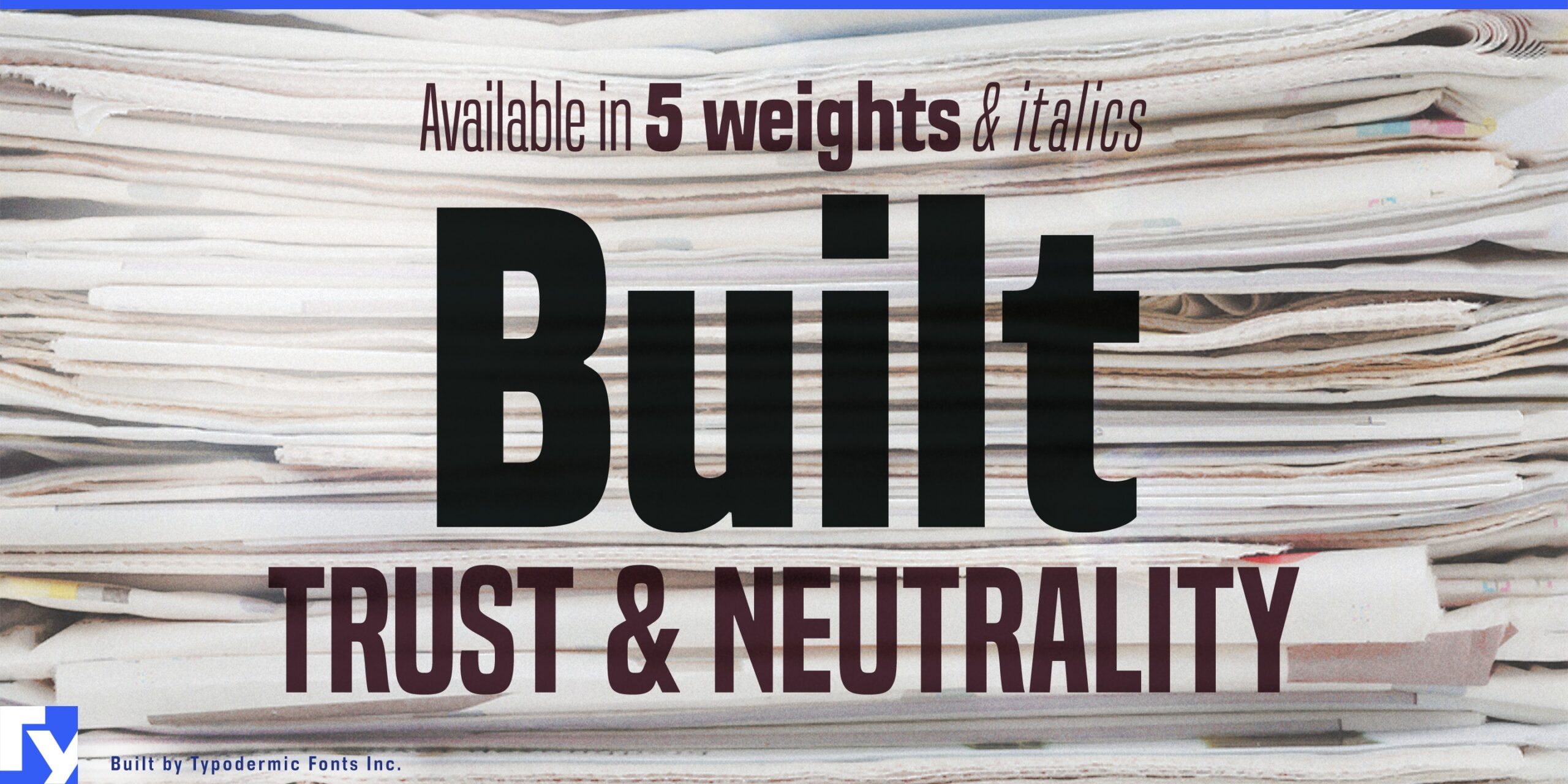
Built Font Family
Built Font Family is a distinctive and expressive font crafted to bring personality, structure, and creative energy into your projects. Built is a headline typeface system you can trust. With five weights, each fine-tuned for impact, Built removes the guesswork from headline design. Every weight is a ready-made headliner—no tinkering with widths or spacing to make it work.
Its secret lies in the proportions. As the weight lightens, the letters subtly narrow, keeping long headlines tight without feeling cramped. Go heavier for compact punch, lighter for airy reach—the balance and legibility stay locked in. Built’s personality is measured and dependable, shaped by clean geometry and a tall x-height that projects clarity from across the page. A sharp, pointed N and refined curves keep it from drifting into bland neutrality, lending a quiet distinctiveness that rewards a second look.
Whether you’re working on news mastheads, magazine spreads, posters, or digital banners, Built offers a cohesive toolkit for headlines that fill their space with confidence. From Extra-Light to Bold, italics included, every style delivers the same message: clear, strong, and ready for the spotlight.